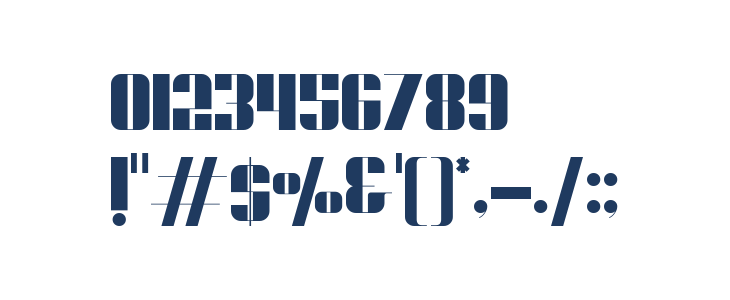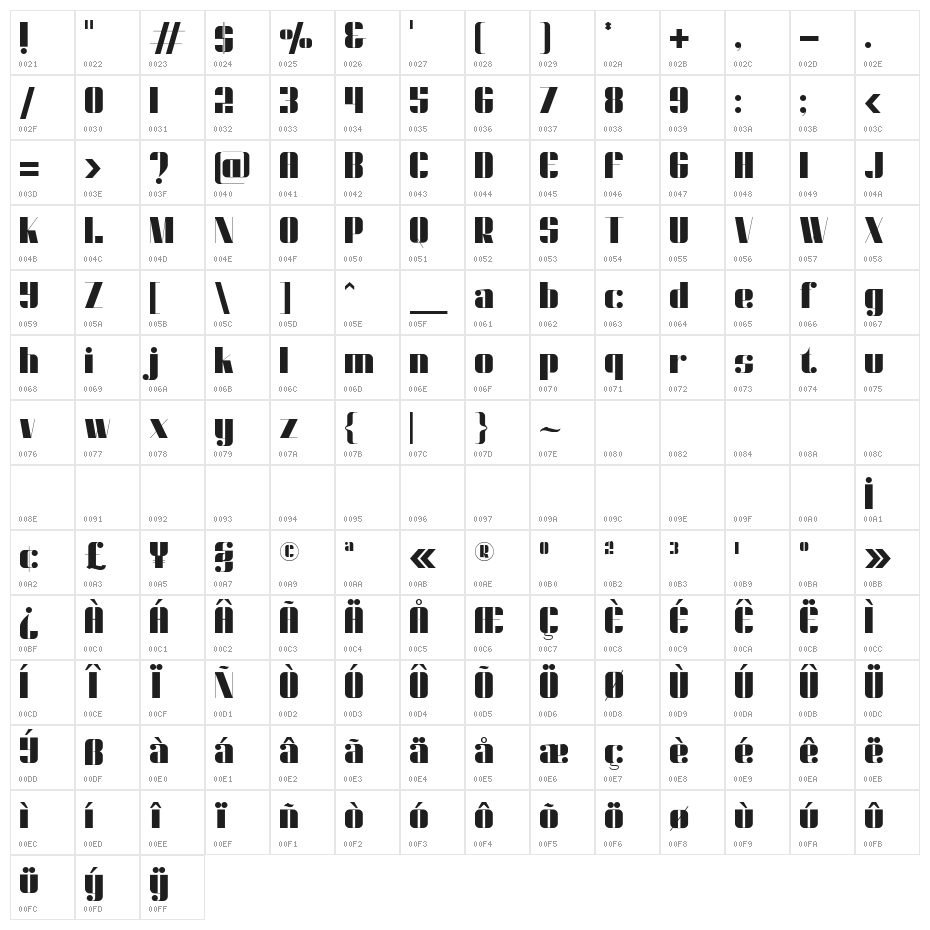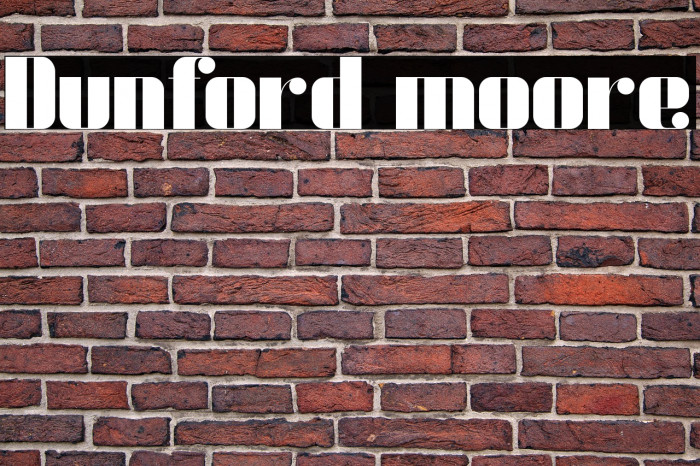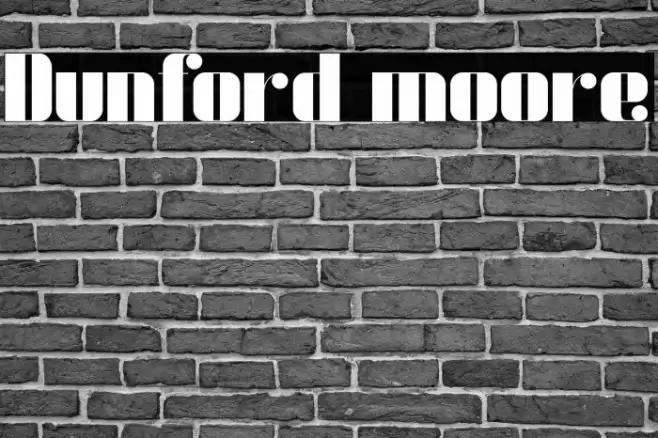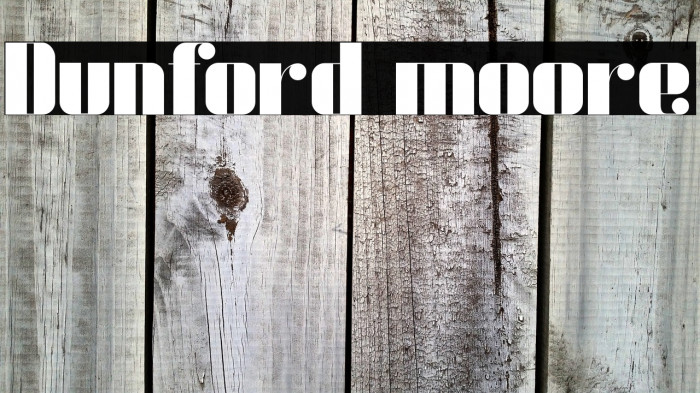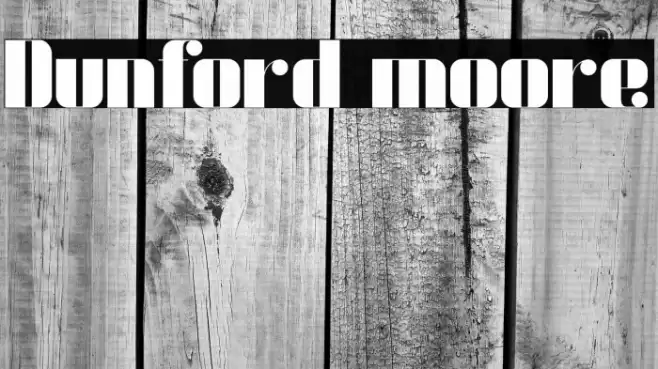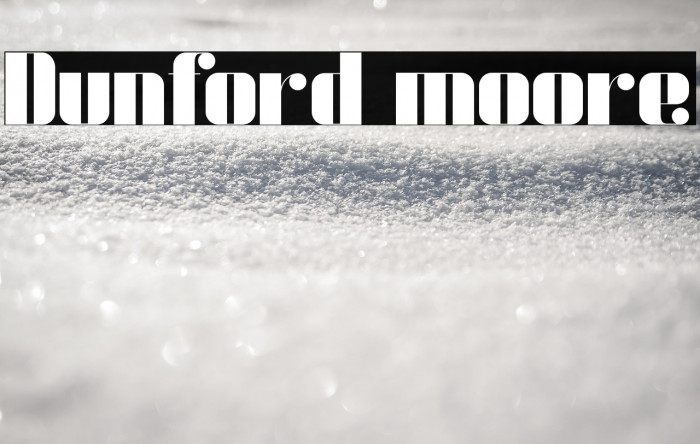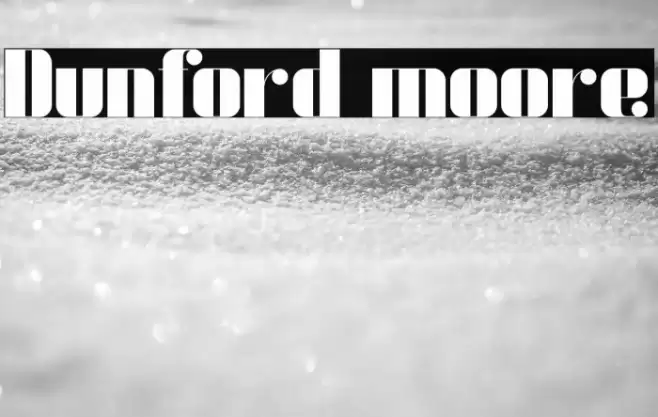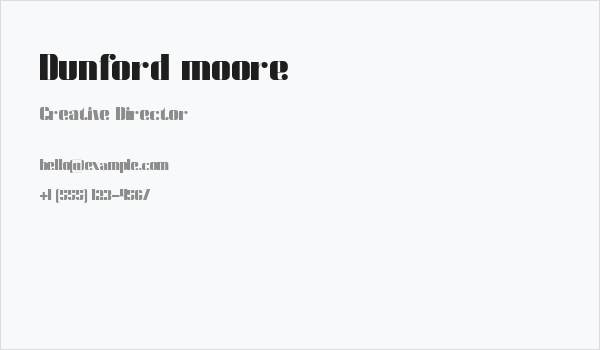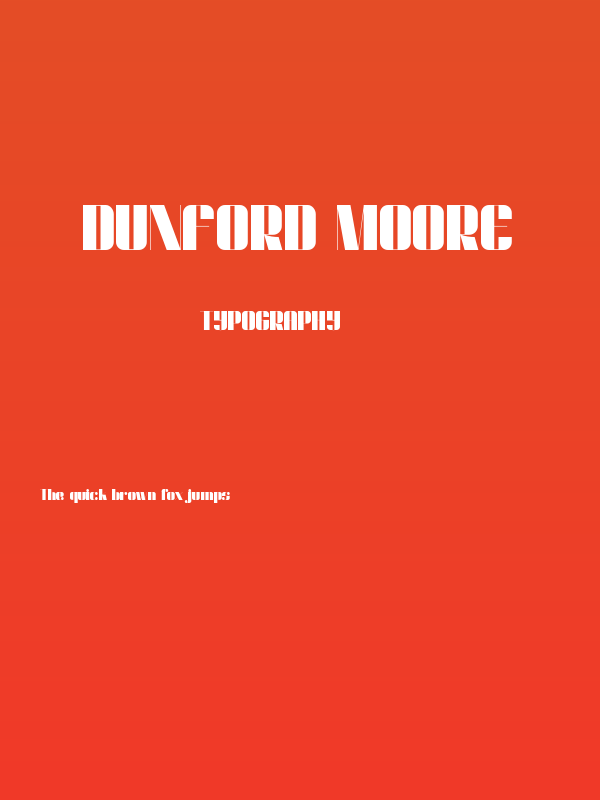
Dunford moore Font
Dunford moore Description
This font features a bold and striking design with a high contrast between thick and thin strokes. The uppercase letters are particularly wide and imposing, while the lowercase letters maintain a consistent style with rounded edges and a modern flair. The numbers are equally bold, ensuring they stand out in any design. Special characters are uniquely styled, adding to the font's overall decorative appeal. The font's geometric shapes and sharp angles give it a contemporary and edgy look, making it ideal for eye-catching headlines and logos.